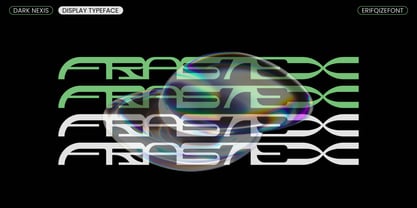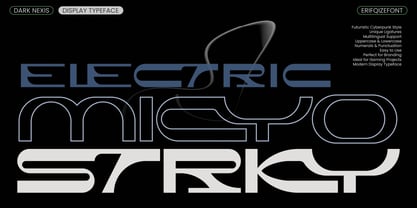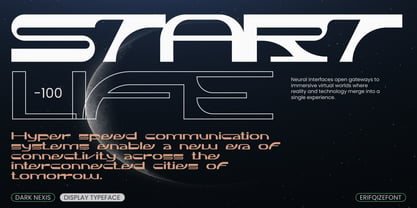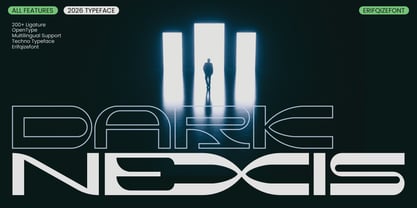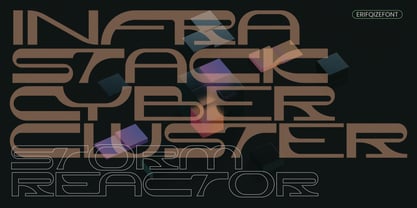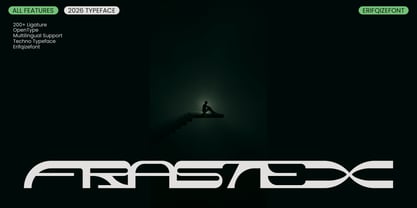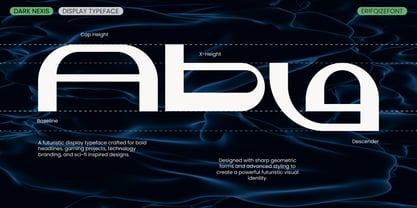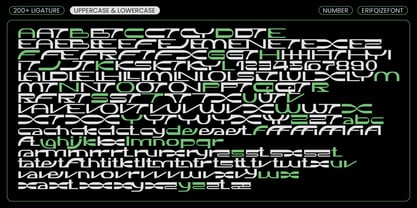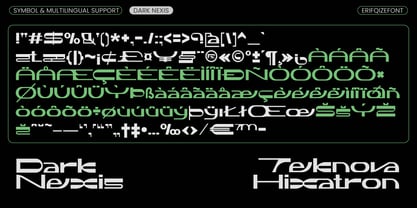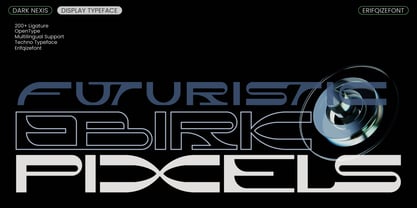
Dark Nexis
by Erifqizefont
The Dark Nexis Font Family was designed by Eka Rifqi Setiawan and published by Erifqizefont. Dark Nexis contains 1 styles. More about this family
Introducing Dark Nexis, a cutting-edge font designed to push your creative boundaries and bring your visuals straight into tomorrow. Capturing a bold aesthetic as a definitive 2026 Typeface, this font seamlessly fuses cyberpunk, techno, and futuristic elements into a commanding layout, its distinct silhouette is perfectly tailored for high-impact science fiction projects, advanced tech branding, cinematic title designs, gaming interfaces, and modern street-wear merchandise.